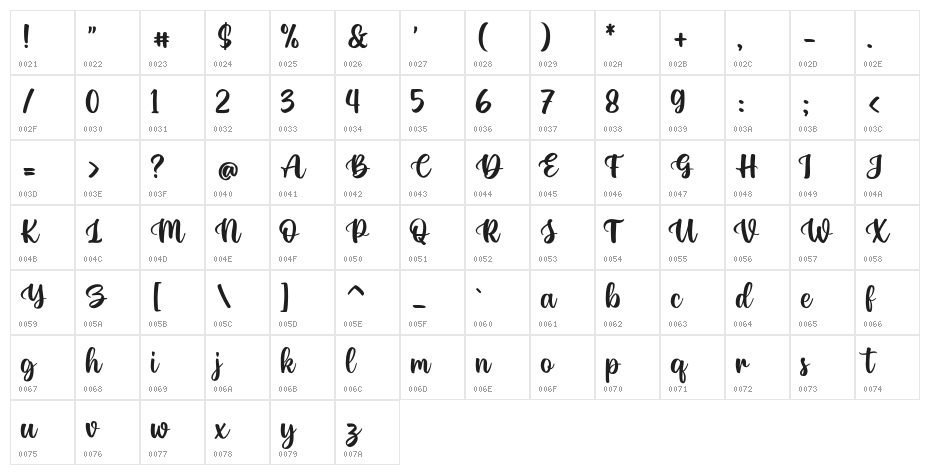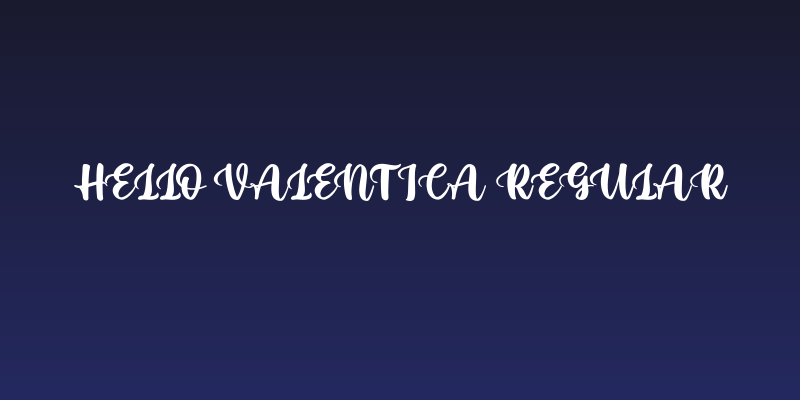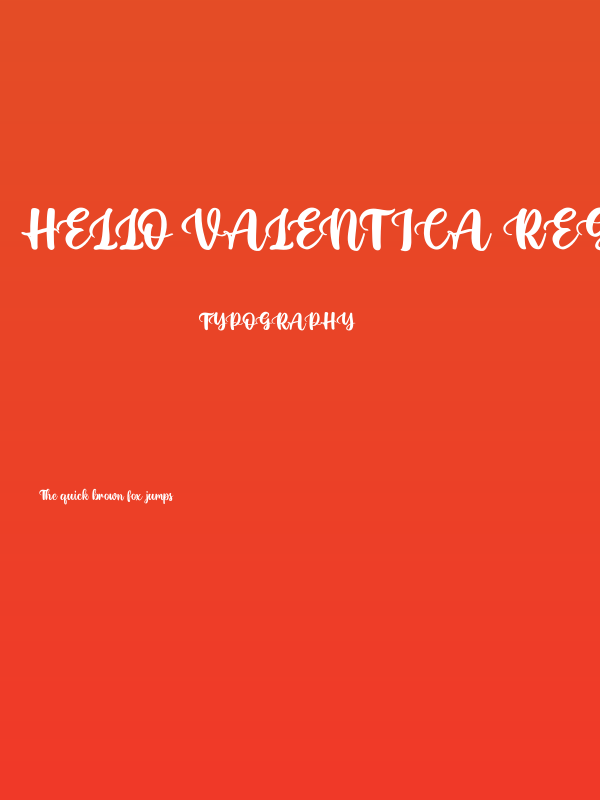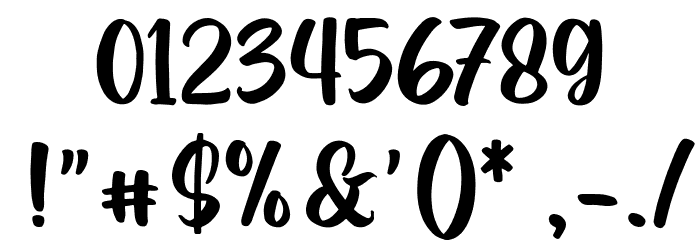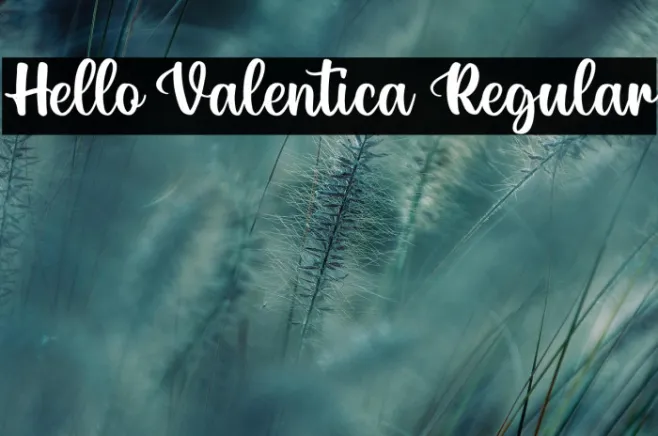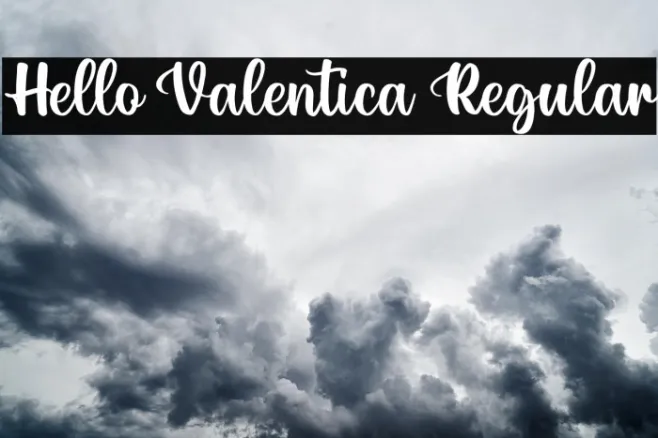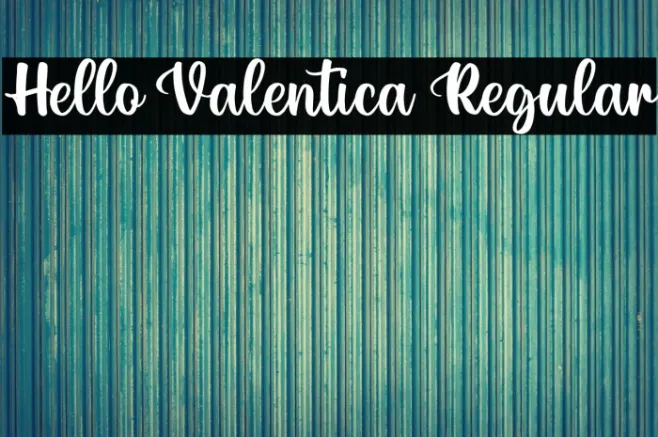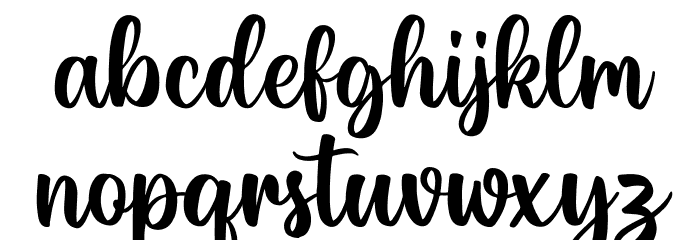
Hello Valentica Regular Font
Hello Valentica Regular Description
This font features a flowing, cursive style with a modern twist. The characters are connected, creating a seamless and elegant appearance. The uppercase letters are bold and prominent, while the lowercase letters maintain a consistent flow with slightly exaggerated loops and curves. The numerals are clear and easy to read, complementing the overall aesthetic. Special characters are designed to match the script style, adding versatility for various uses. The font's playful yet sophisticated look makes it suitable for creative projects.
| Proposed Projects | Ideal for wedding invitations, greeting cards, branding, and social media graphics. |